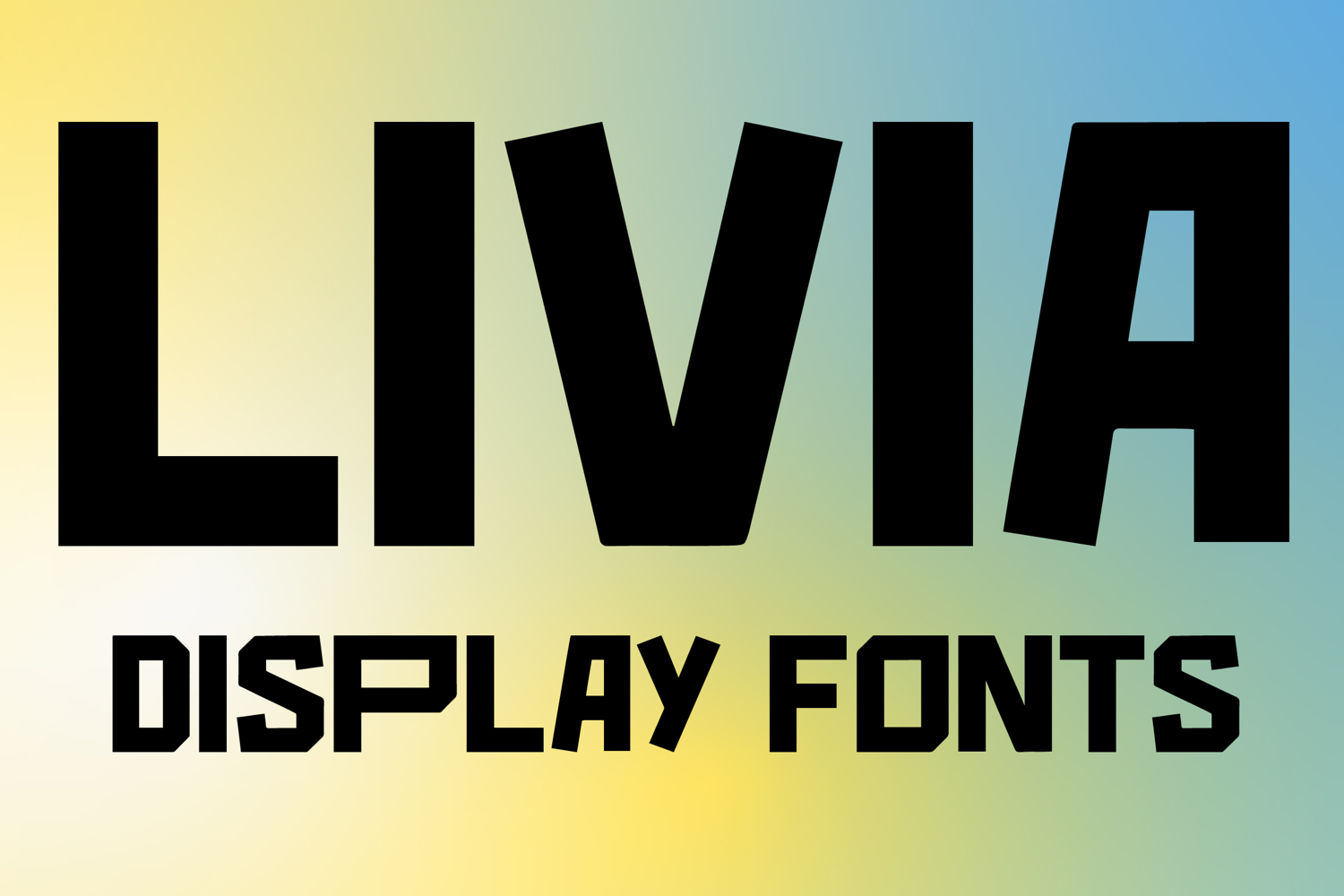
LIVIA
LIVIA is a bold display font with a strong geometric style and modern edgy character. Its uppercase letterforms feature thick blocky strokes, sharp angular cuts, and slightly irregular details that create a powerful, clean, and eye-catching look. Designed with uppercase letters A–Z and numbers 0–9, LIVIA is perfect for branding, posters, packaging, logos, headlines, and social media graphics that need a striking and memorable statement.